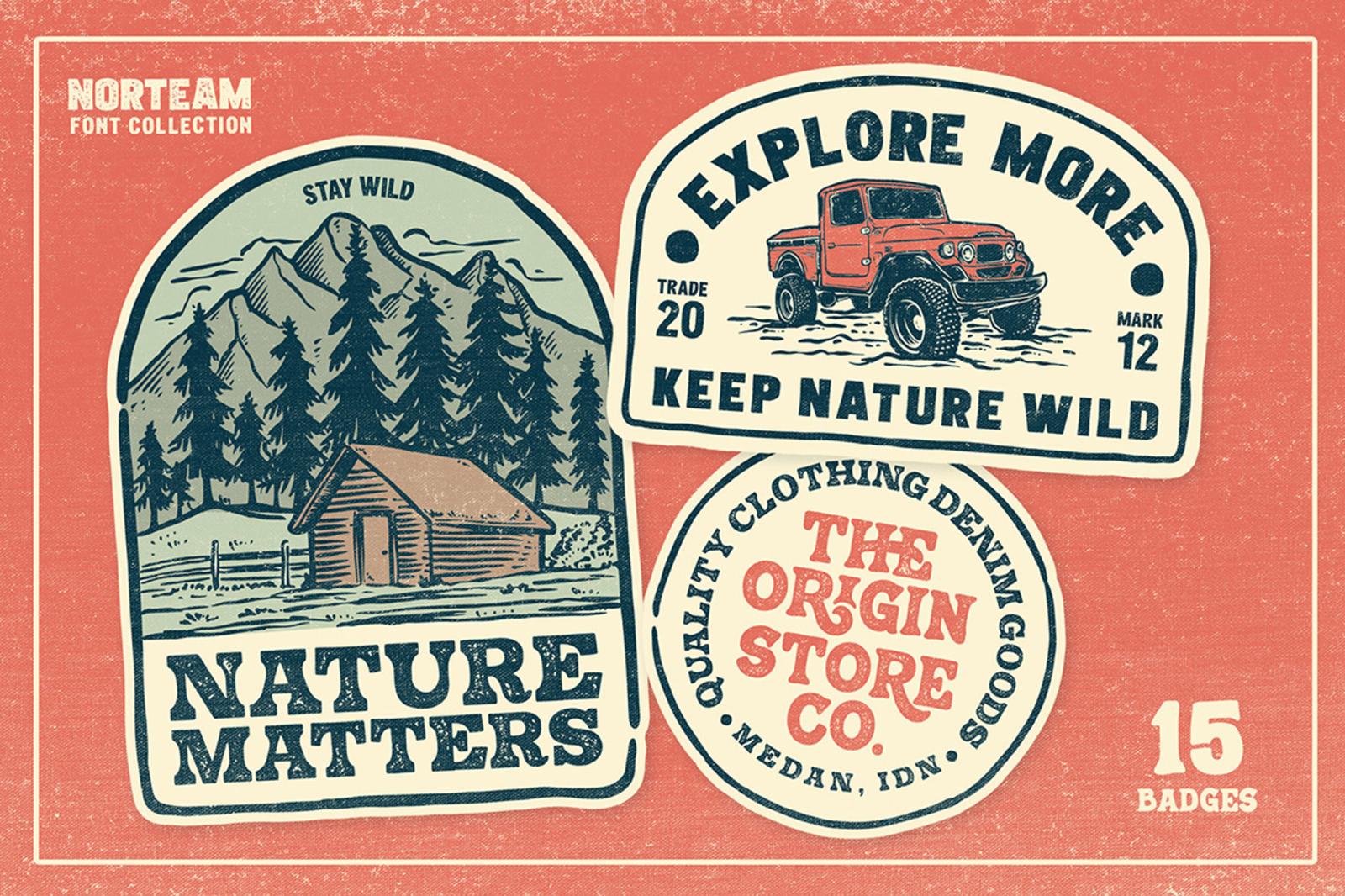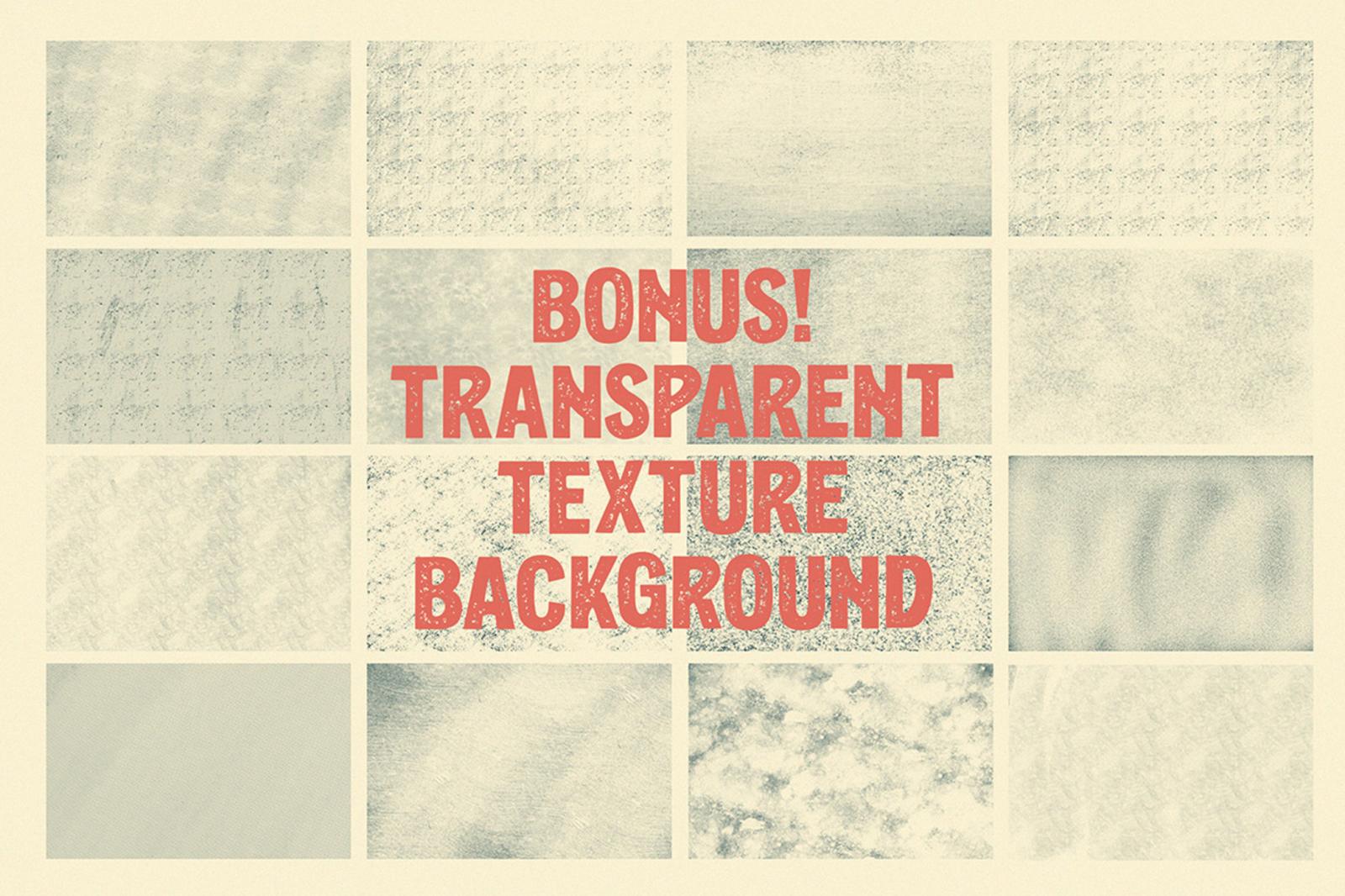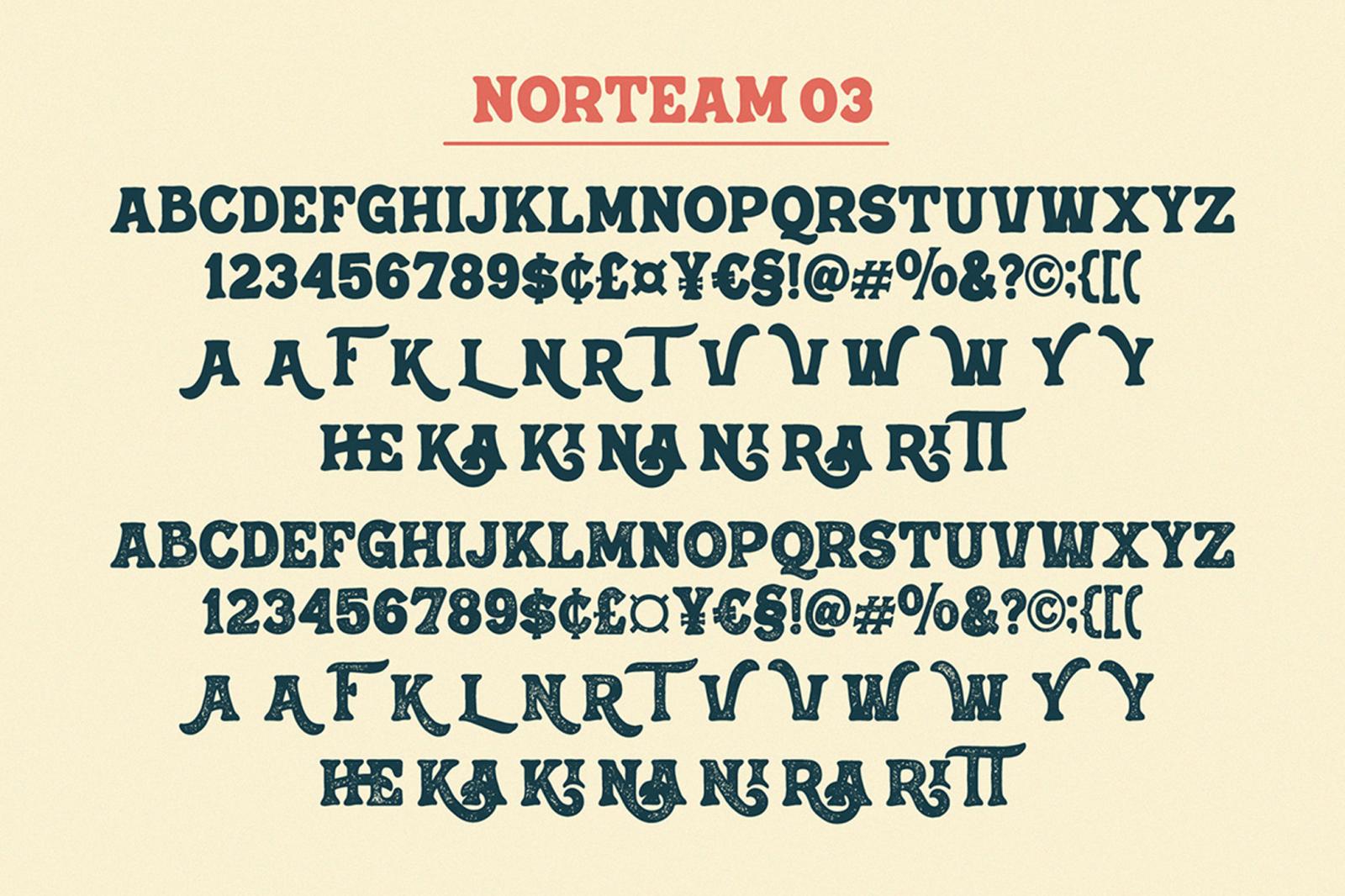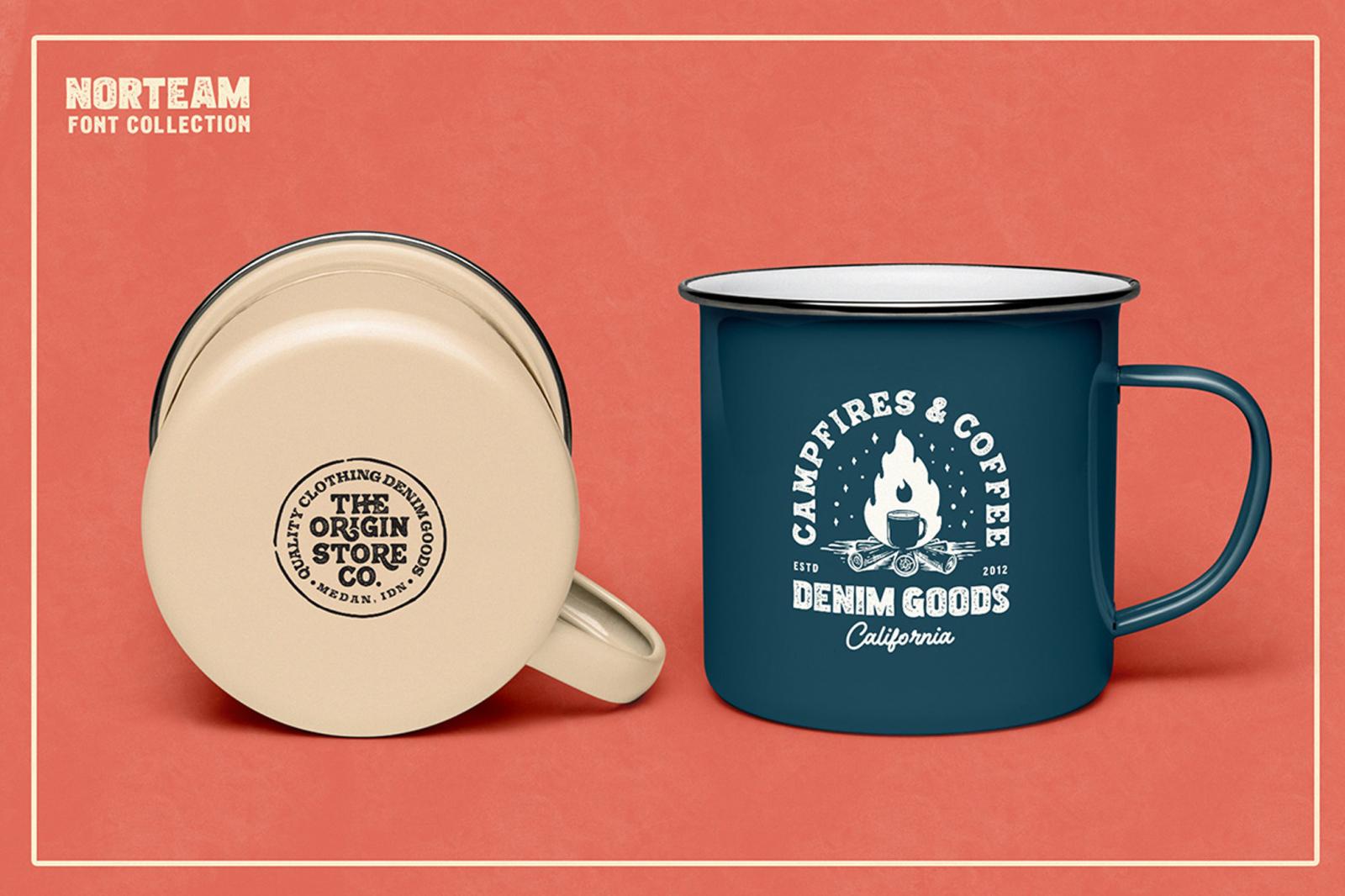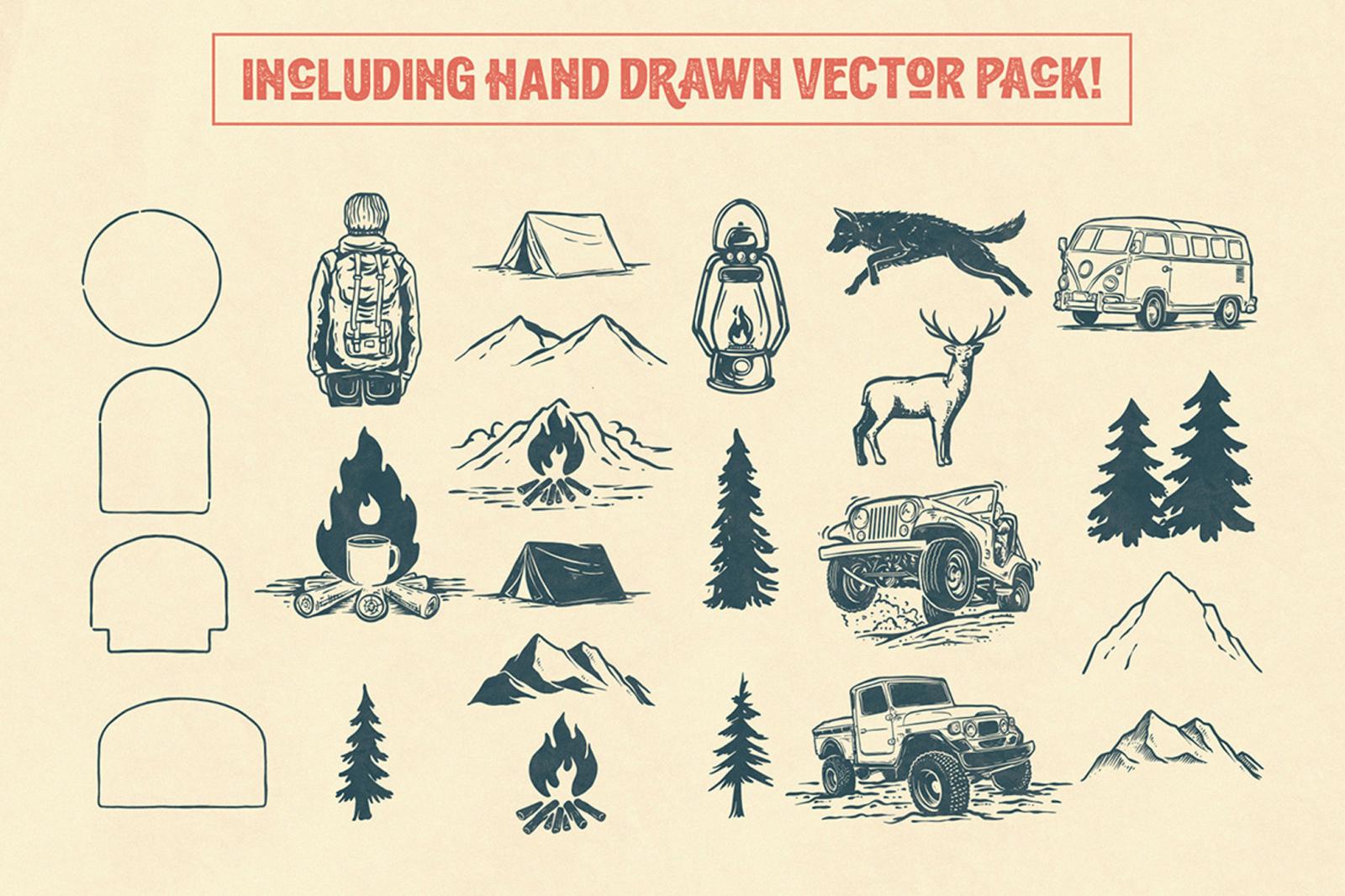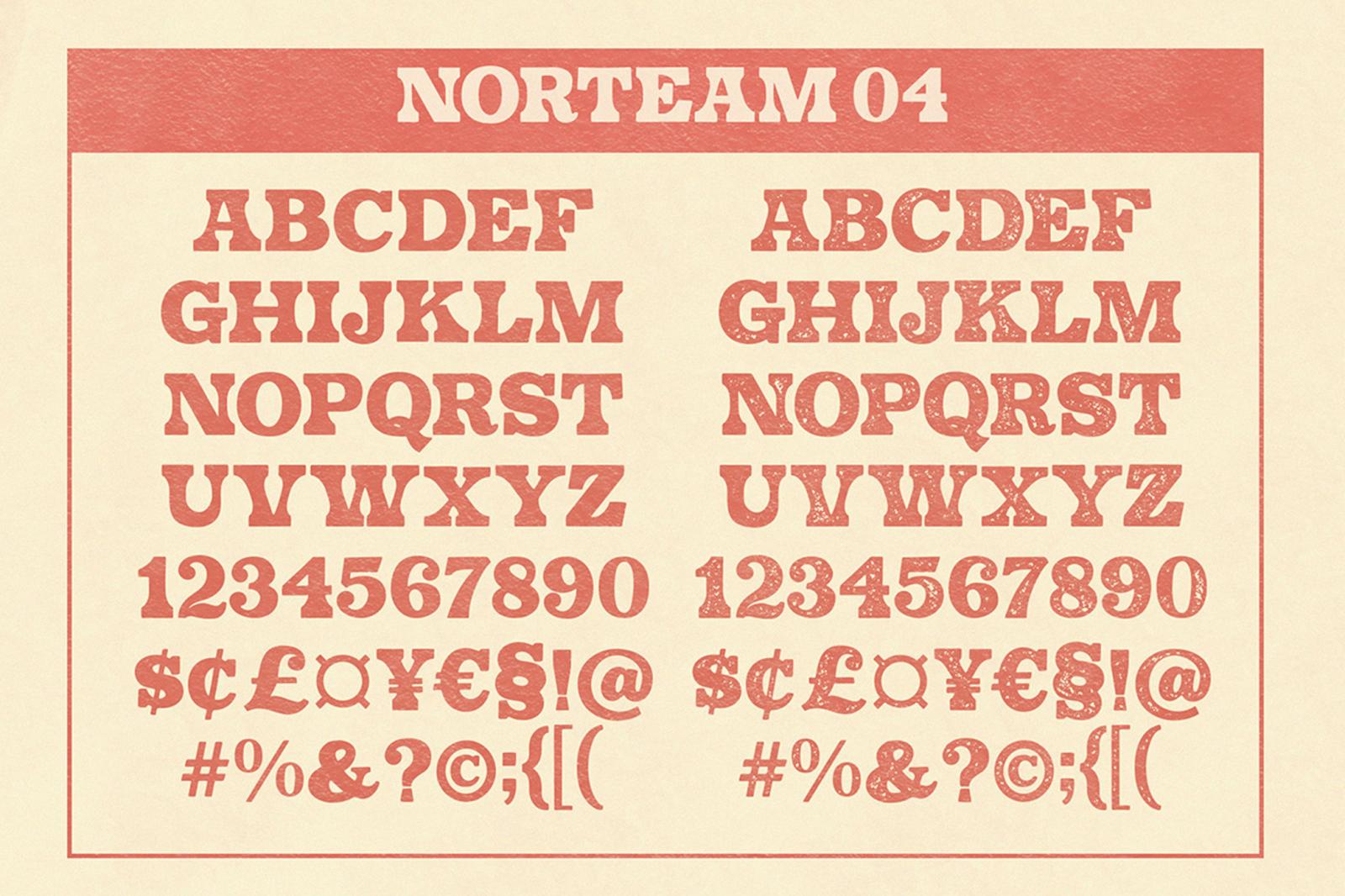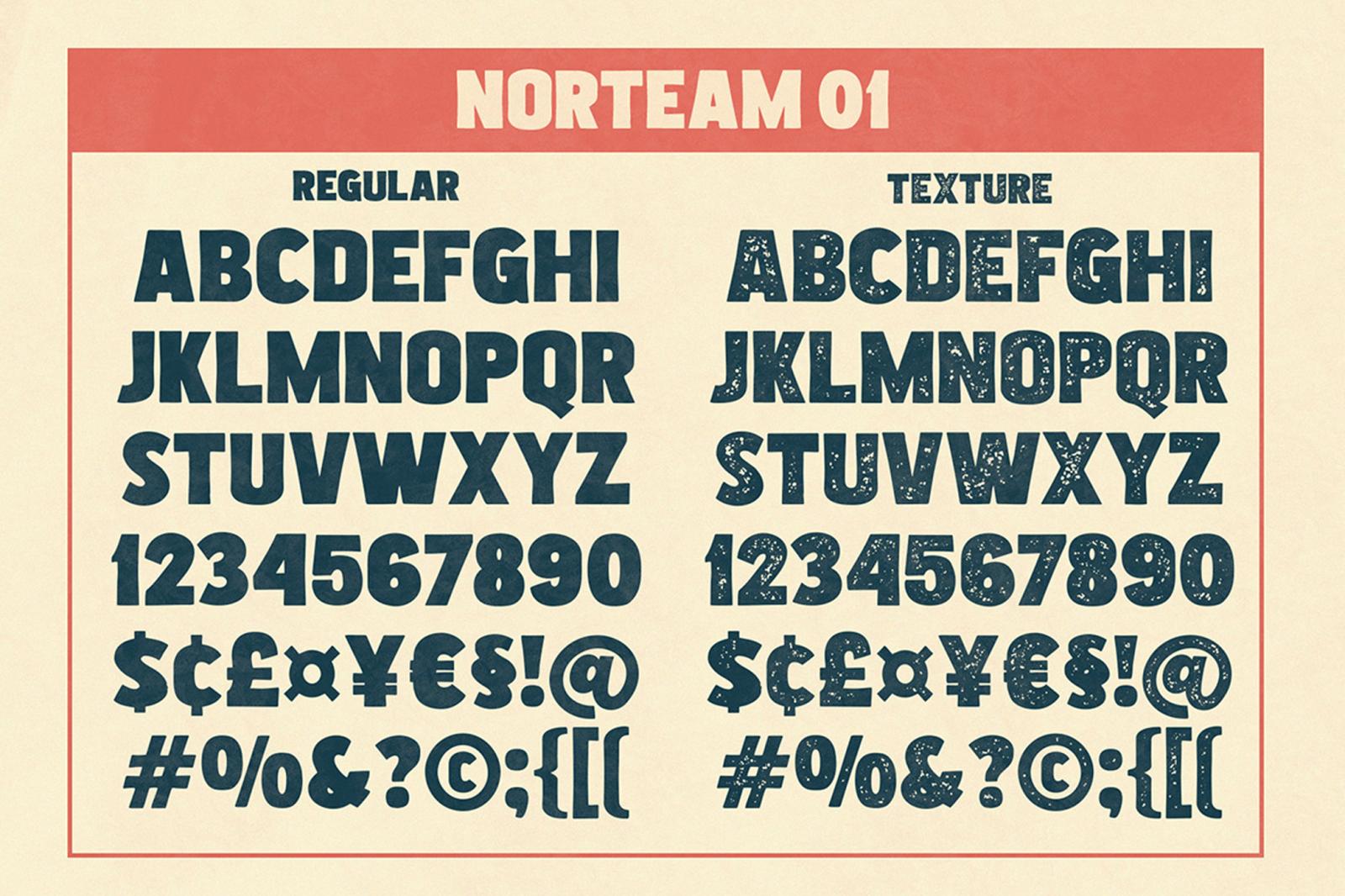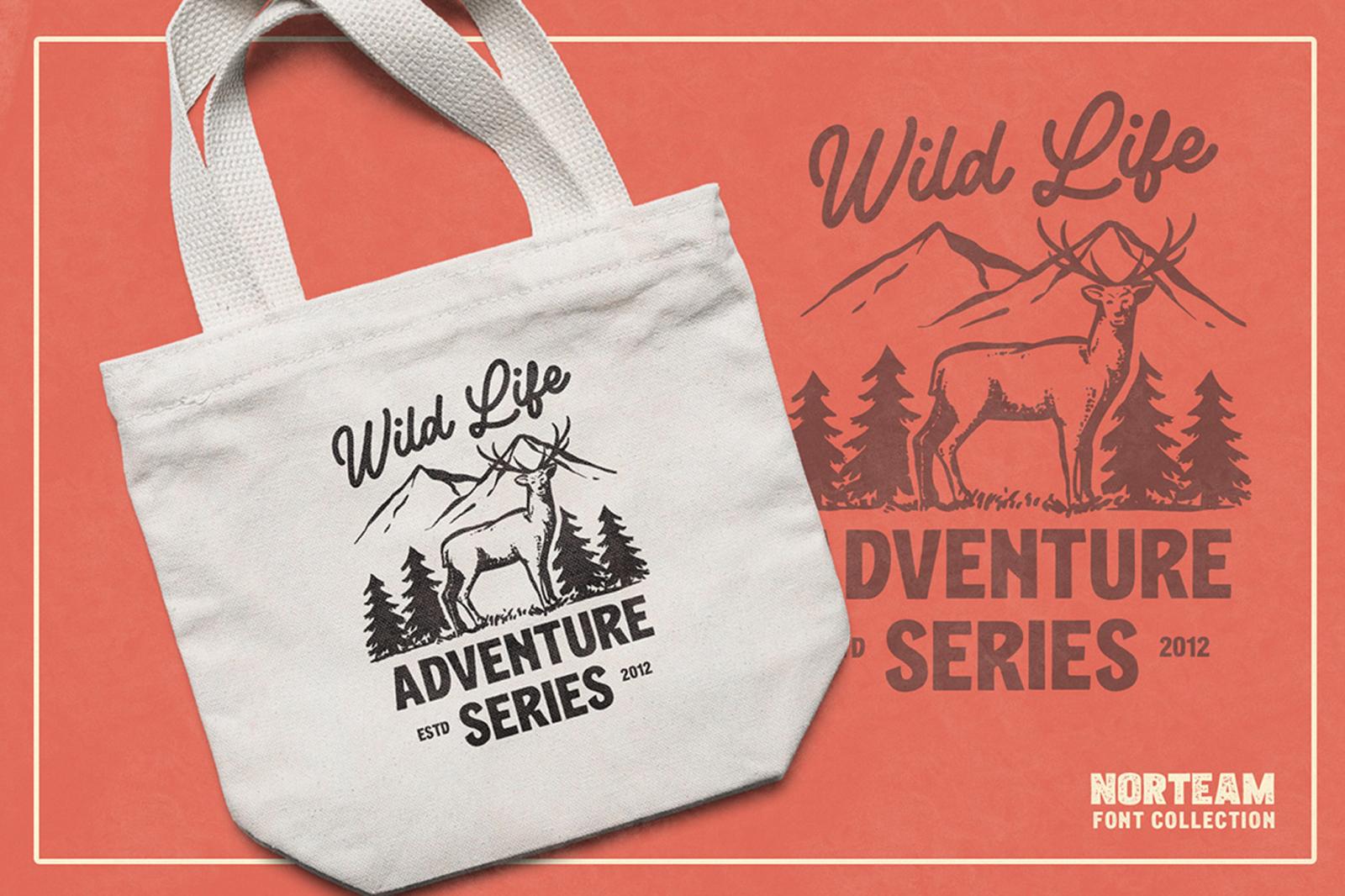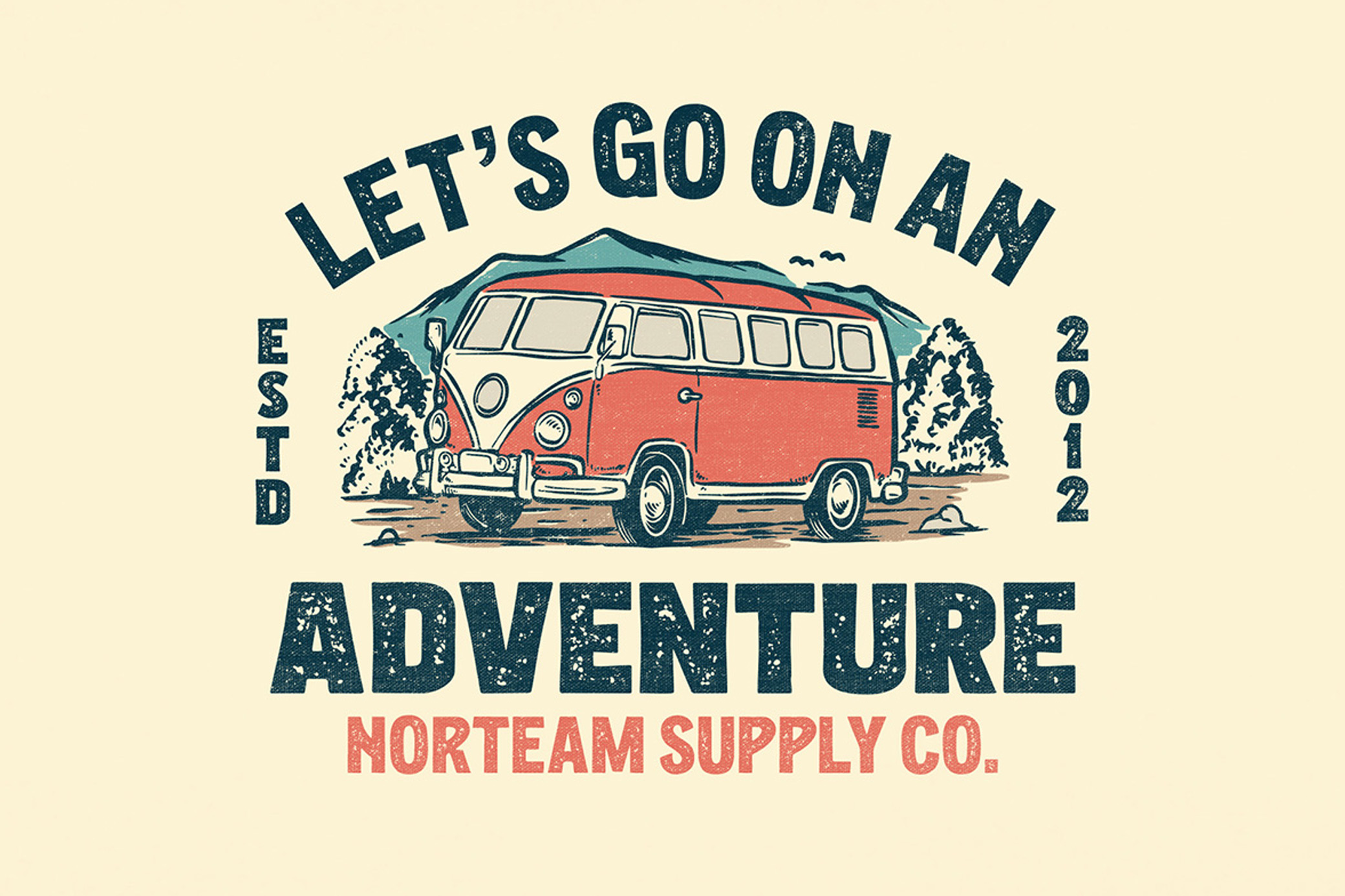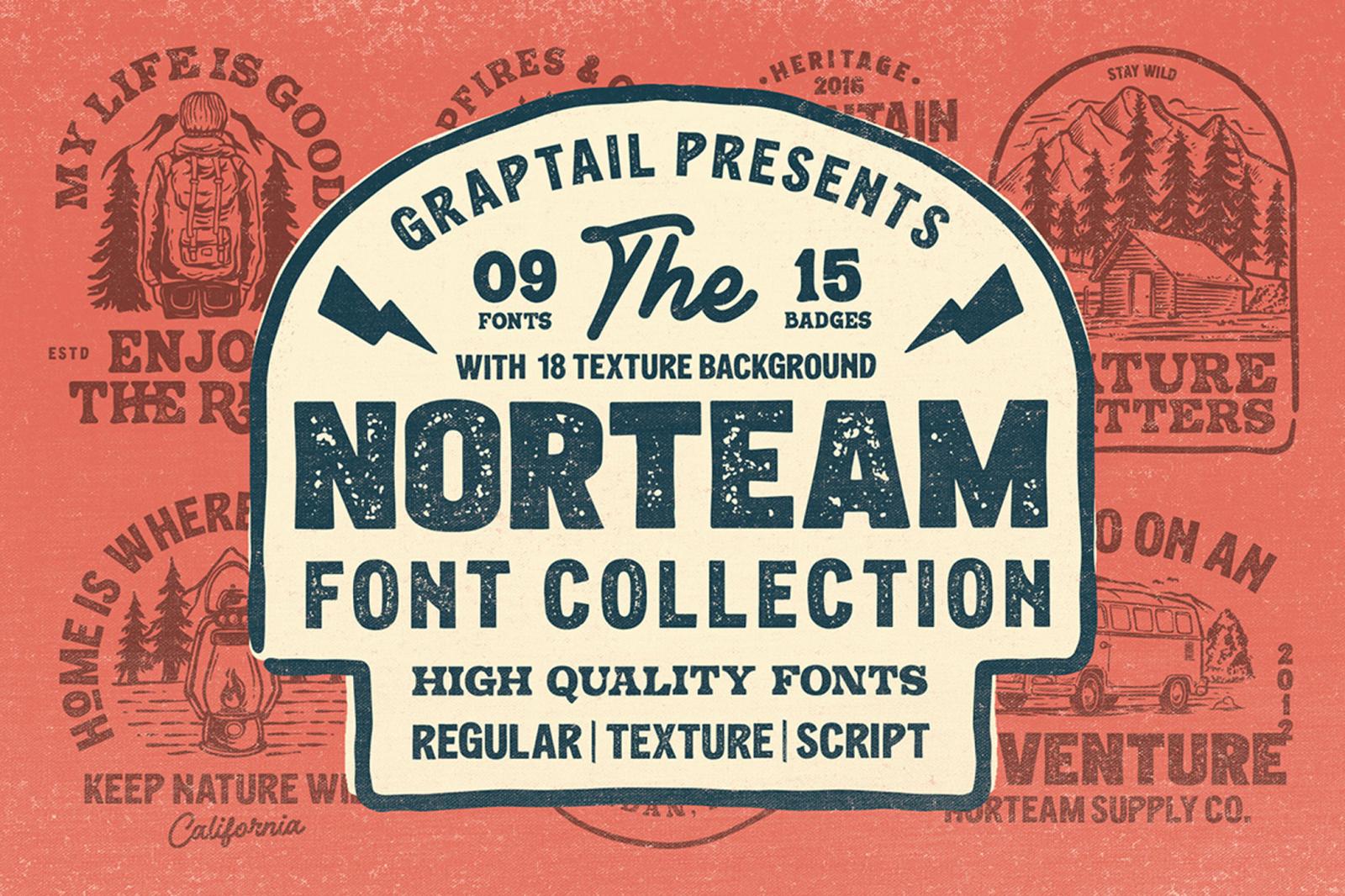
Norteam | Font Collection
Do you feel the fresh air whispering tales of adventure? It’s nudging you to pack up and head out, but wait — your design projects need finishing first. That’s where the Norteam font collection steps in.
It's your go-to for adding that handcrafted, rugged vibe to your work. With 9 font styles, including 4 textured, 5 clean, and a script, Norteam brings the feel of vintage shirt designs straight to your logos, packaging, and titles. But it doesn’t stop there. The collection also includes 15 editable badge templates and 18 textured backgrounds, making your work not just easier, but beautifully authentic. We believe that this collection is a perfect companion for both your creative endeavors and your adventurous spirit.